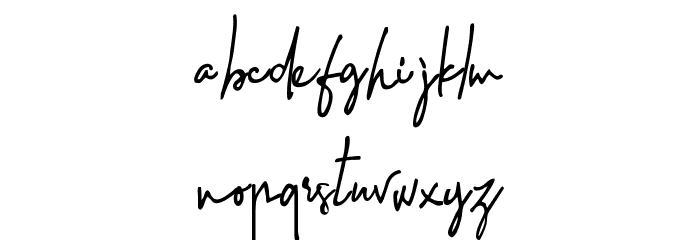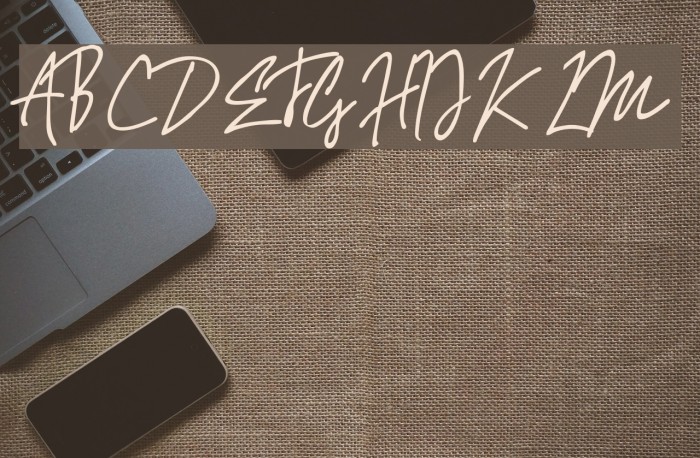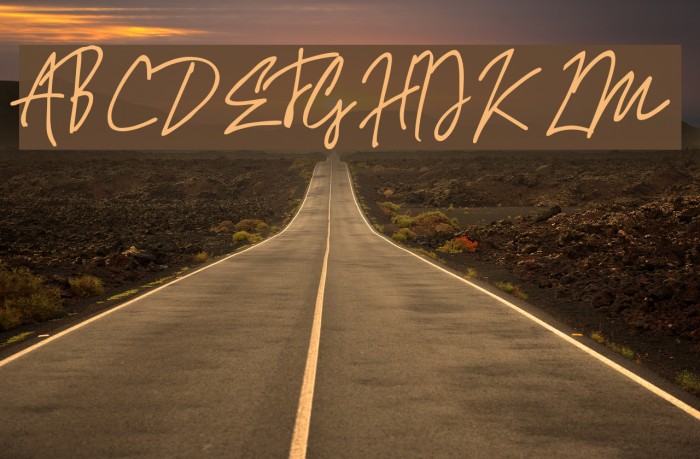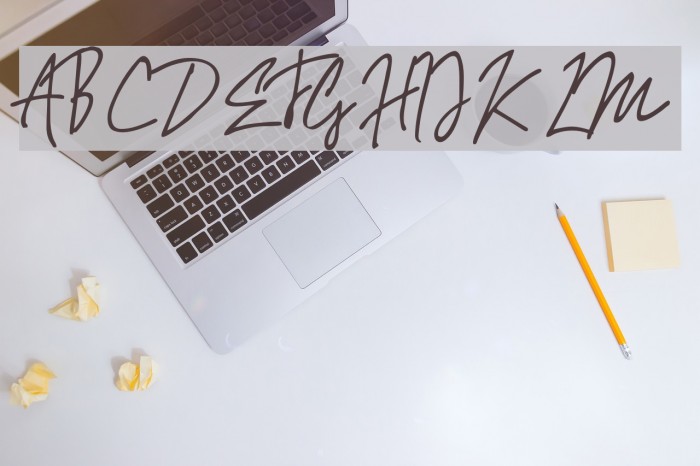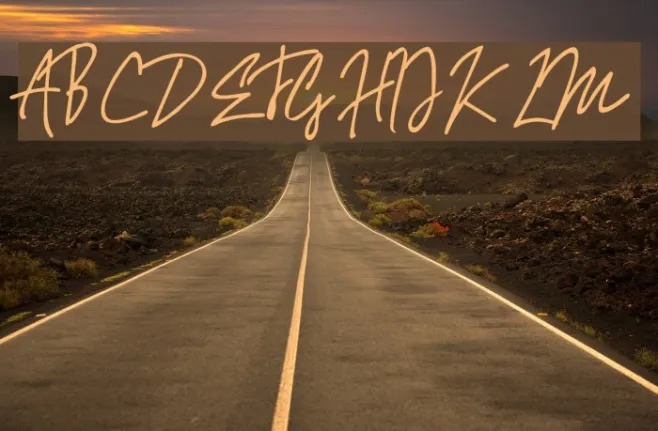
Sinteria Font
This font features a flowing, cursive style that mimics elegant handwriting. The uppercase letters are bold and sweeping, with a distinctive flair that adds a touch of sophistication. The lowercase letters maintain a consistent flow, creating a harmonious and connected appearance. The overall design is smooth and fluid, with a slight slant that enhances its handwritten feel. The characters are well-spaced, allowing for readability while maintaining the script's artistic nature. This font is perfect for projects that require a personal or artistic touch, such as invitations, greeting cards, or branding materials.
A flowing, cursive script font with an elegant, handwritten style.
- Proposed Projects: Ideal for wedding invitations, greeting cards, personal branding, and artistic projects.
- Category: Script
- Overall Style: Elegant, Handwritten
- Use Case: Logos, Invitations, Artistic projects